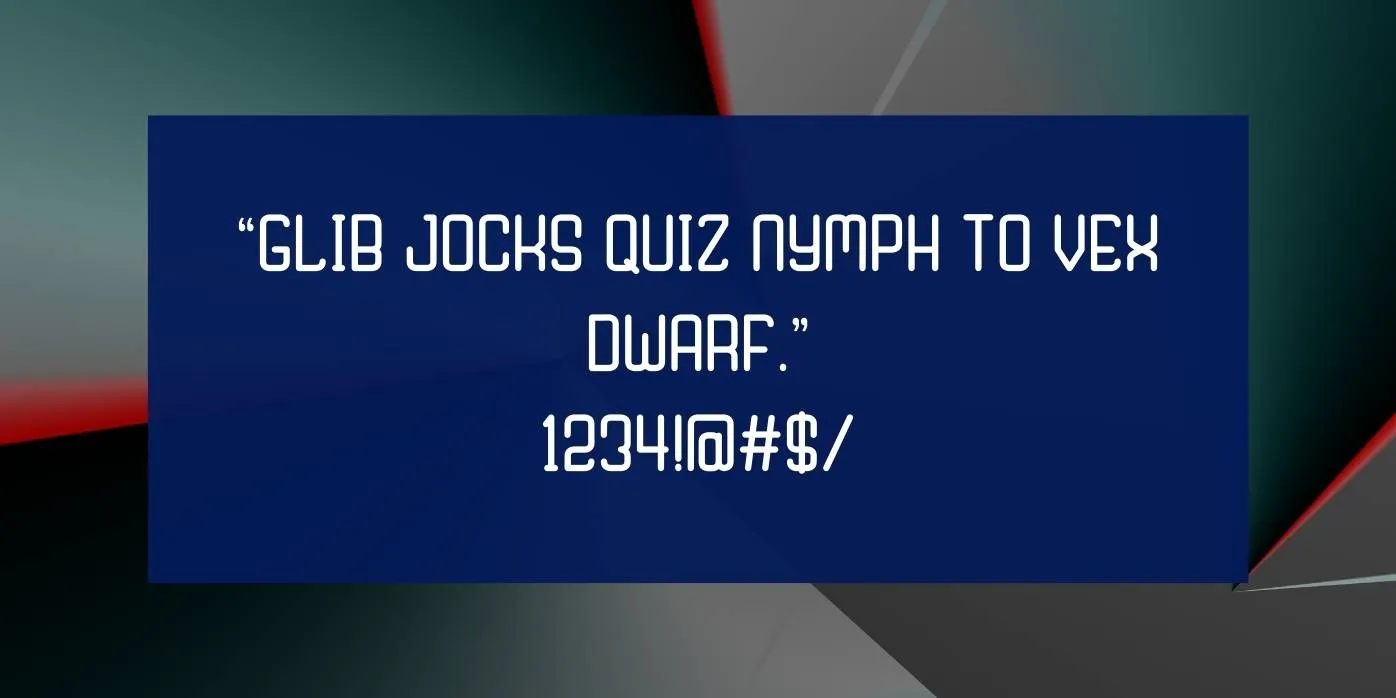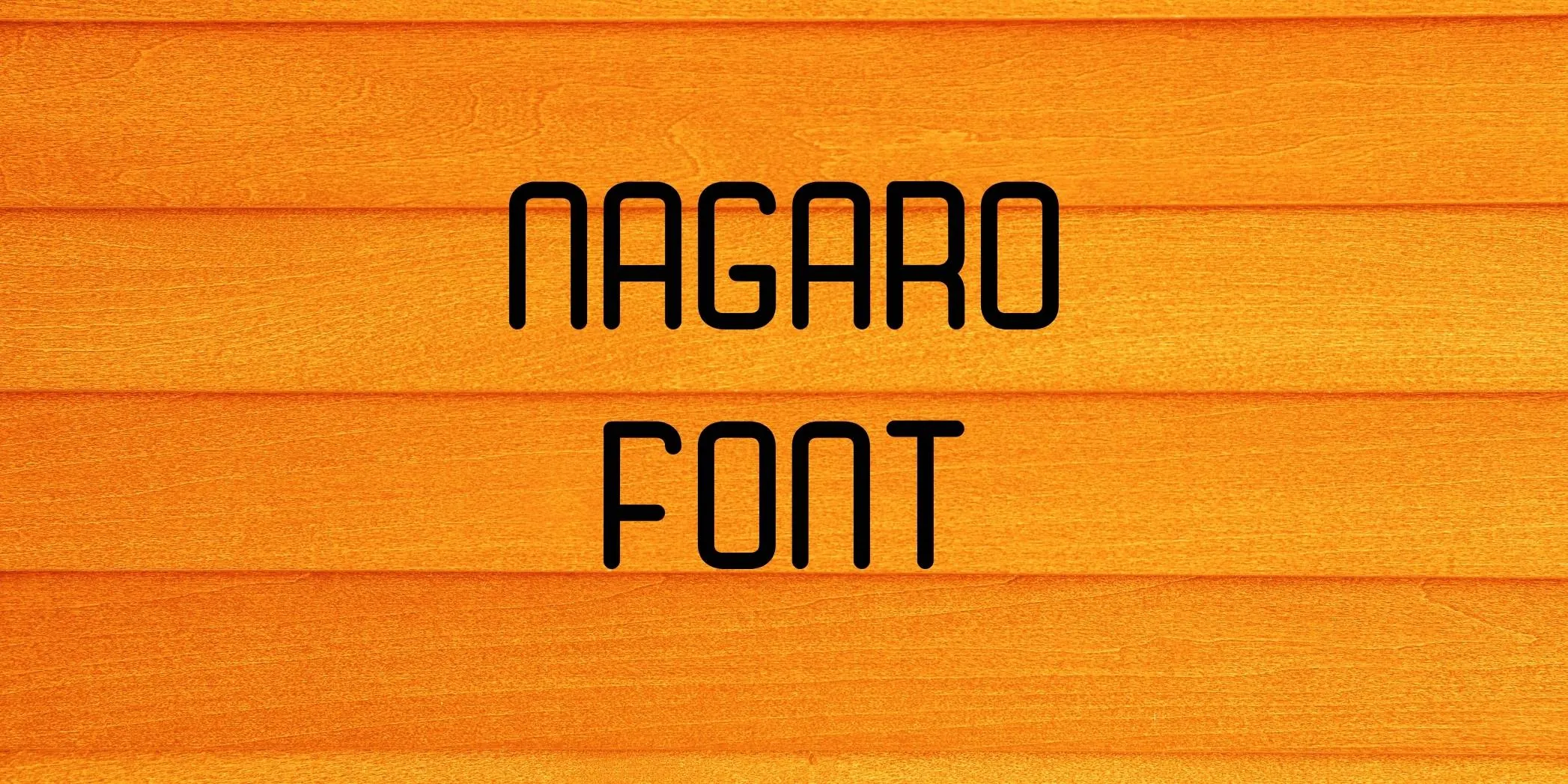
Nagaro Font
Nagaro Font is a sans serif typeface that was designed by Swiss typeface designer Max Miedinger in 1957. The design is influenced by the German DIN 1451 typeface which was used for road and railway signage in Germany. This font has a more modern look with its rounded corners and slightly condensed letterforms. It is suitable for both body text and headlines.
The typeface family is a little bit closer to reem kufi font, therefore you can combine them for making something really cool. This Font was originally released by the Haas Type Foundry in 1957. The typeface was later revised and renamed Helvetica by Linotype in 1961. This font is still used widely today, especially in Switzerland where it is the official typeface of the Swiss Federal Railways.